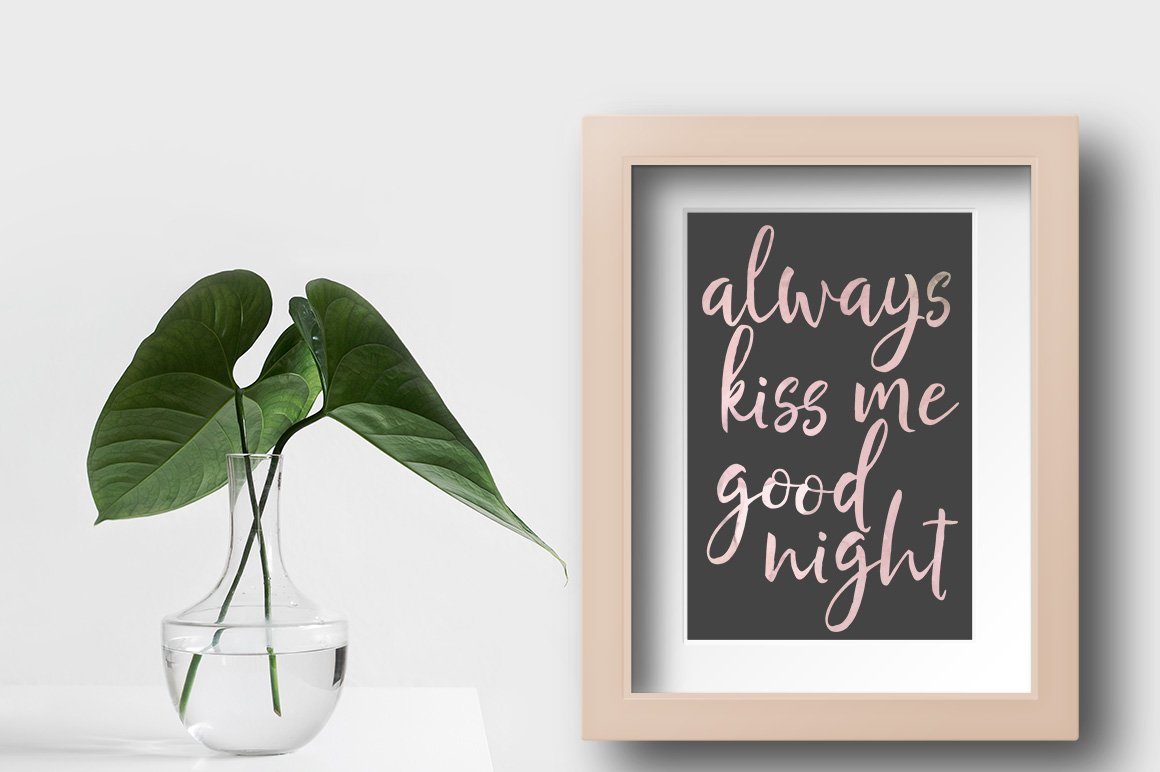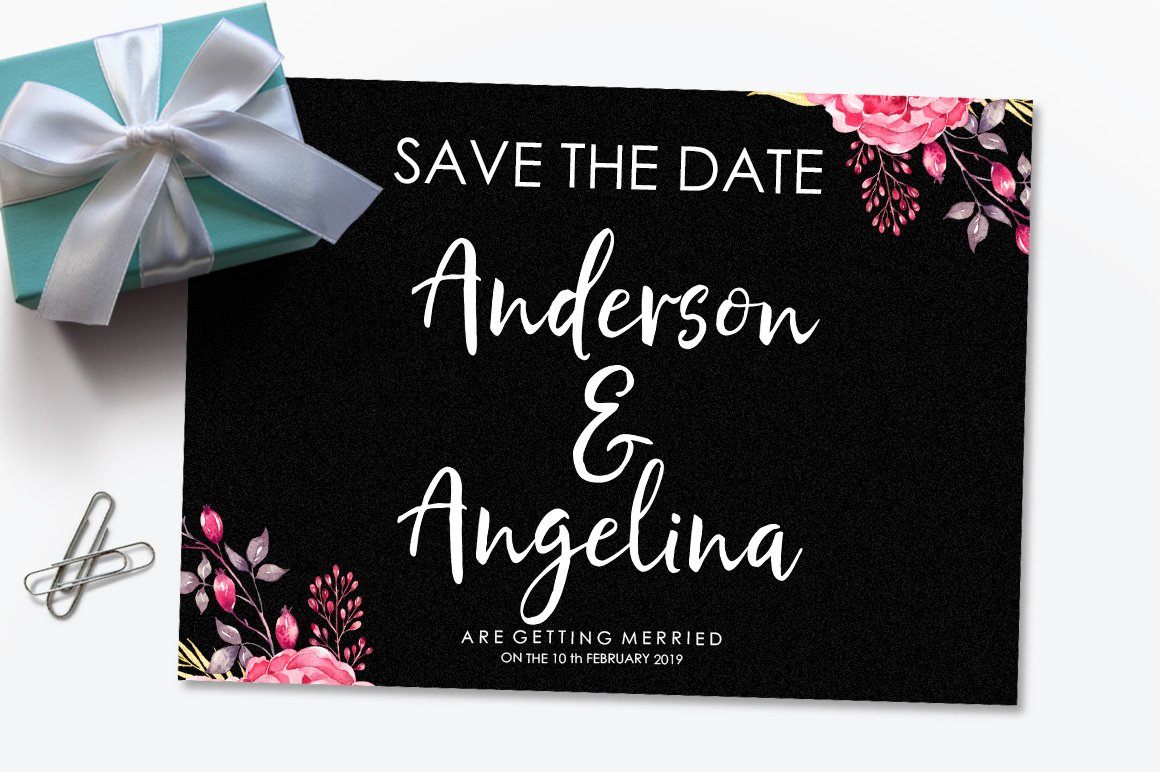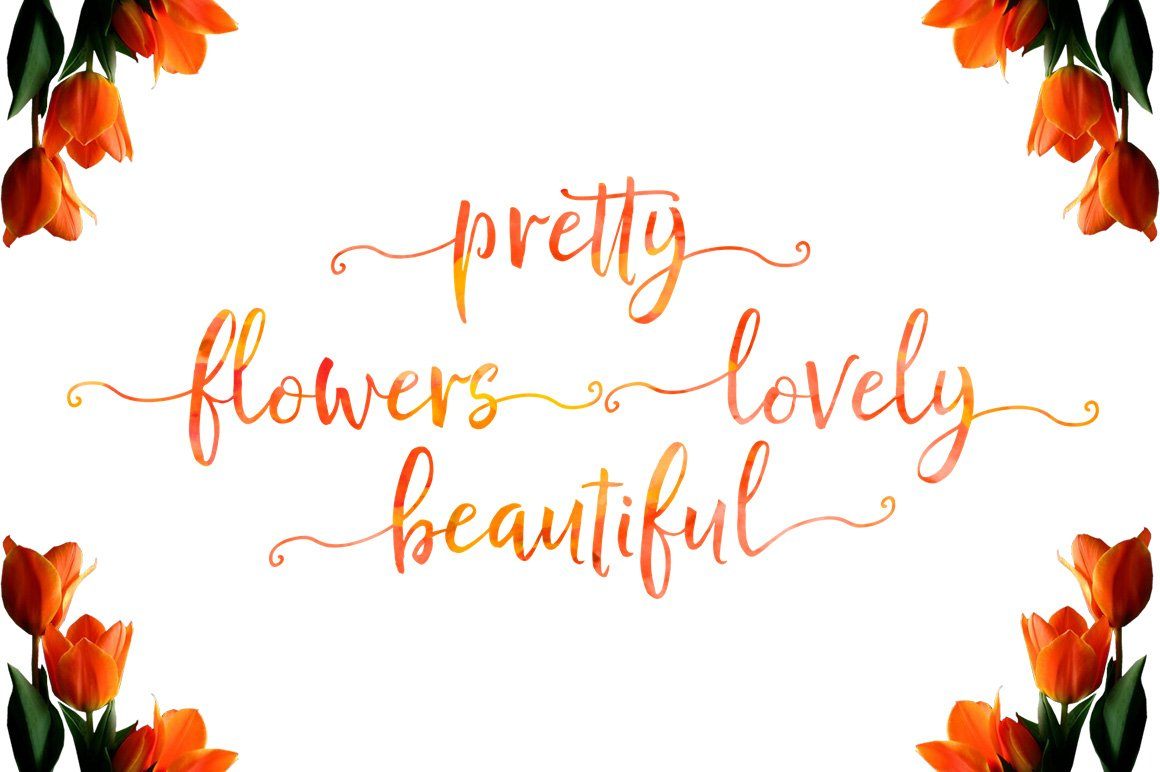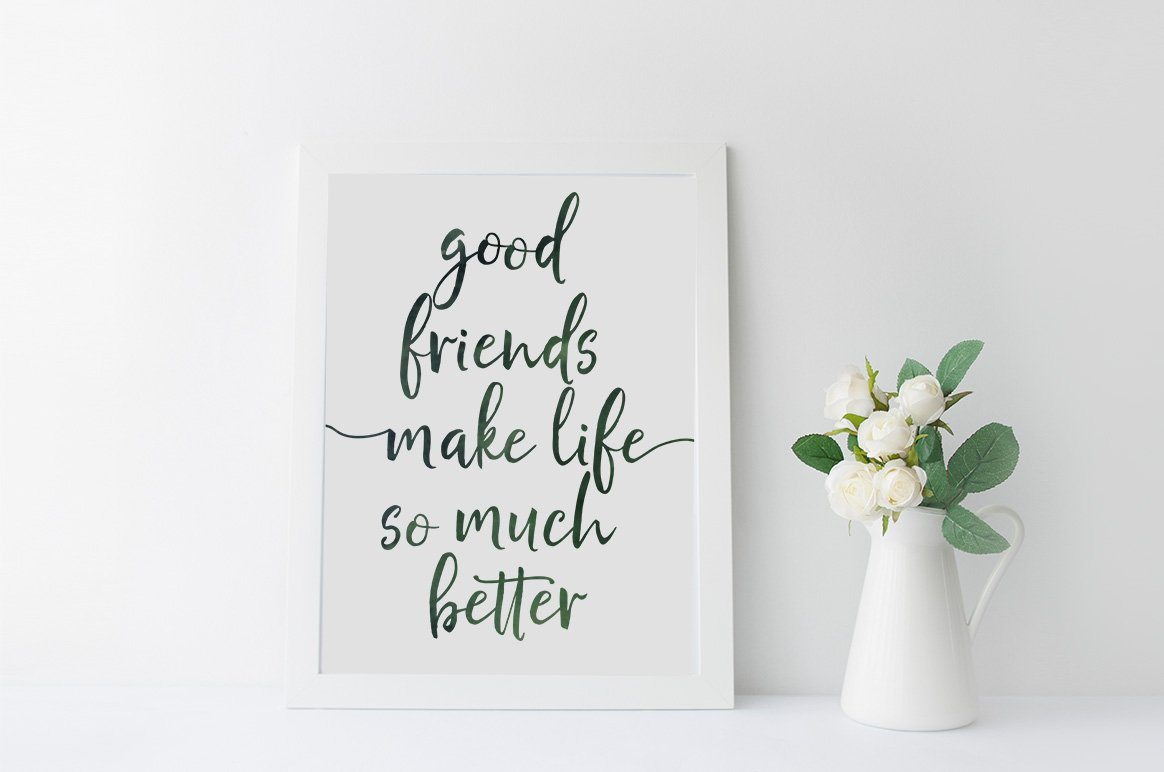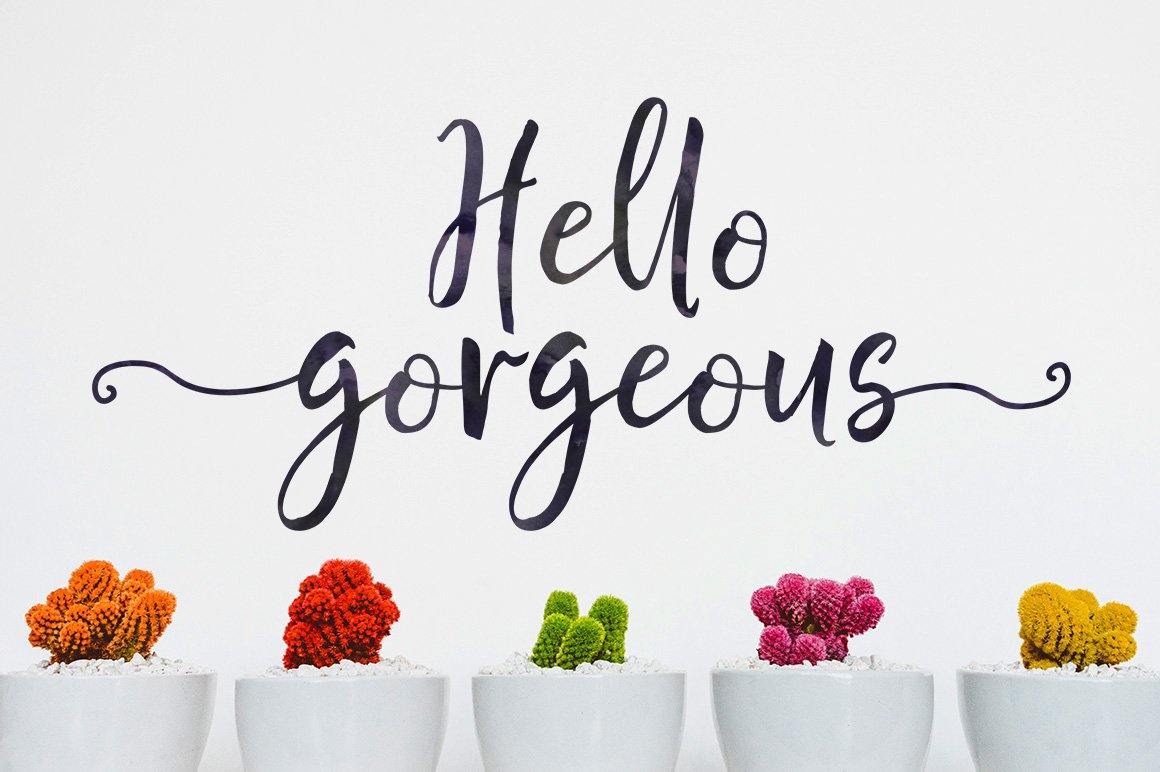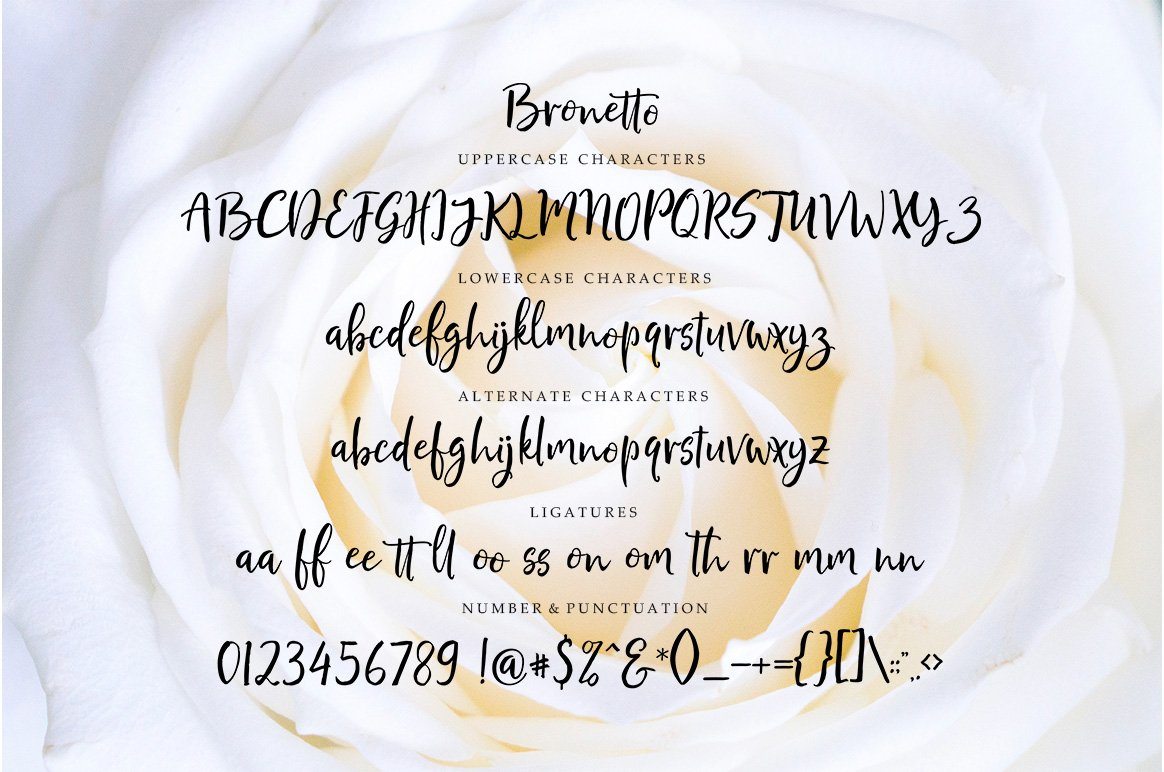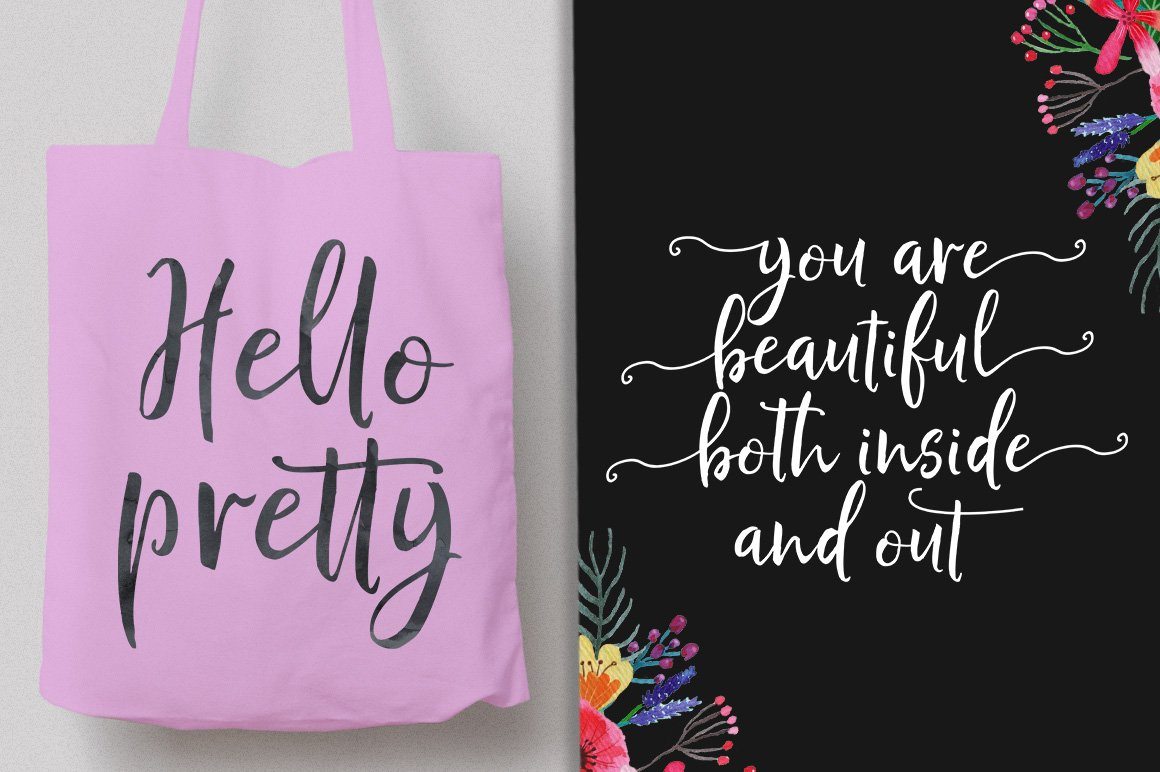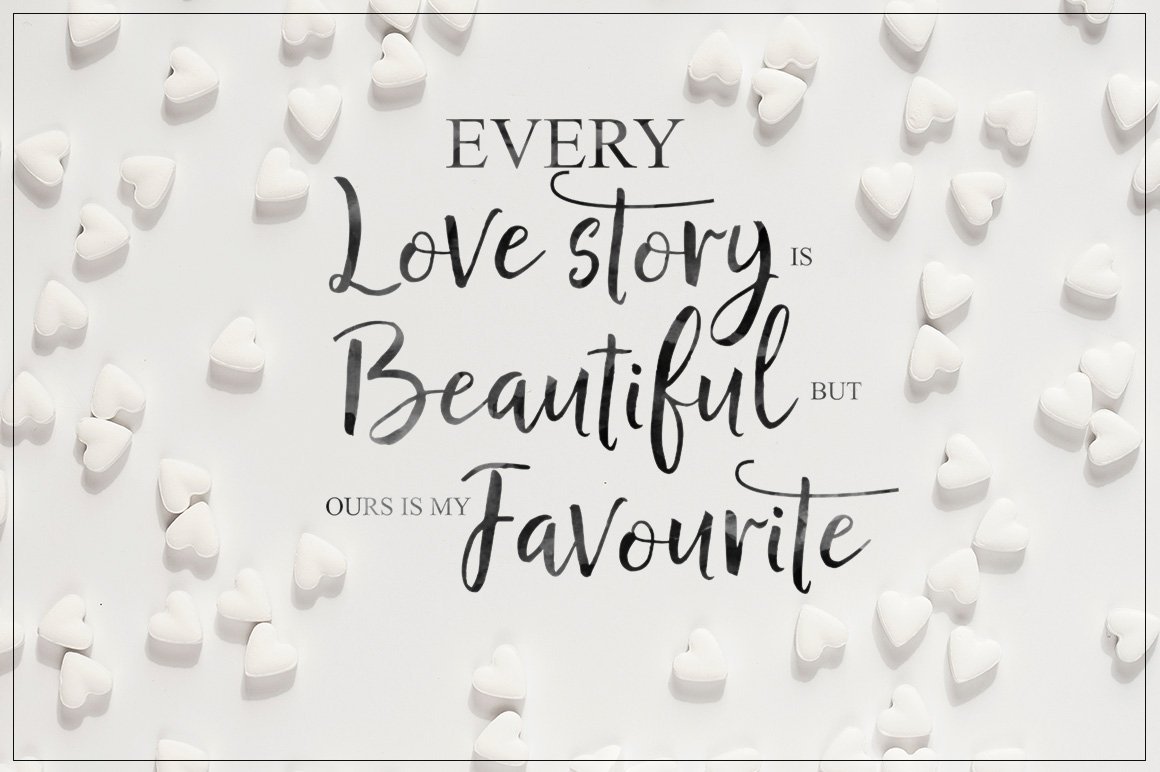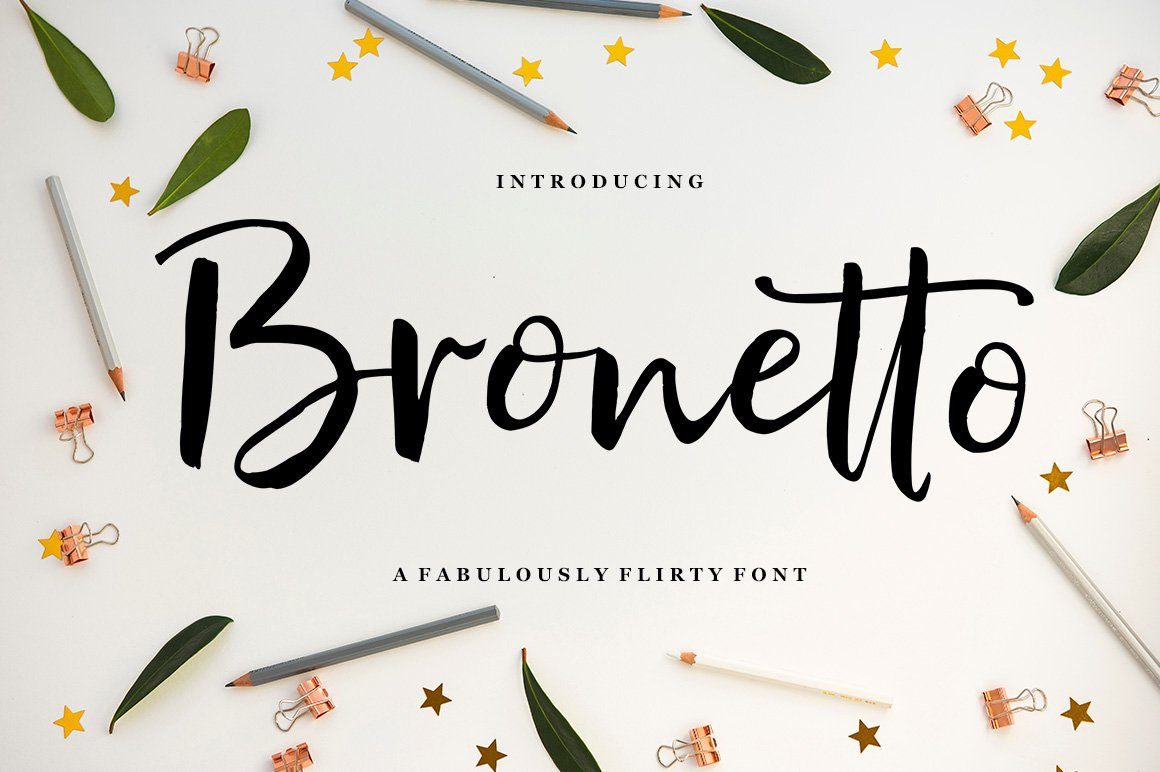
Bronetto Script
About Bronetto Script
WELCOME ! The new Bronetto Script Font. It’s an modern typeface with a tasty flow. Bronetto Script features alternate characters, including initial,& end swashes terminal, ligatures and International support for most Western Languages is included. This one should make your designs instantly professional and jaw-dropping! Be a perfect professional in a minute and start creating modern designs like ads, sales, logos, branding, posters, social media text overlays today! To enable the OpenType Stylistic alternates, you need a program that supports OpenType features such as Adobe Illustrator CS, Adobe Indesign & CorelDraw X6-X7, Microsoft Word 2010 or later versions. and there are additional ways to access alternates/swashes, using Character Map (Windows), Nexus Font (Windows), Font Book (Mac) or a software program such as PopChar (for Windows and Mac). How to access all alternative characters using Adobe Illustrator: https://www.youtube.com/watch?v=XzwjMkbB-wQ How to access all alternative characters, using Windows Character Map with Photoshop: https://www.youtube.com/watch?v=Go9vacoYmBw Thank you for your purchase!